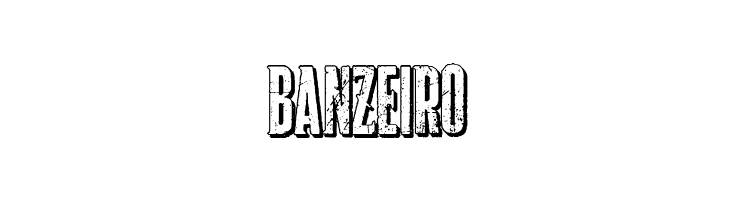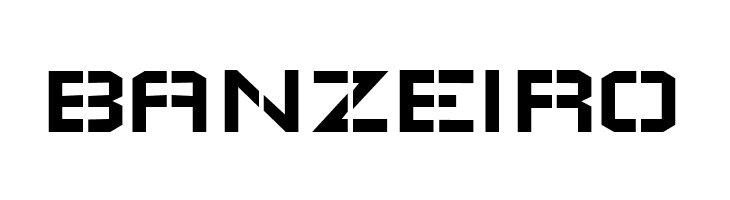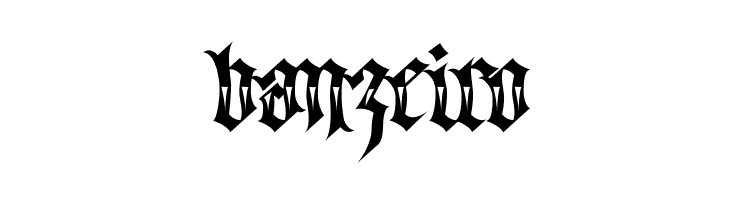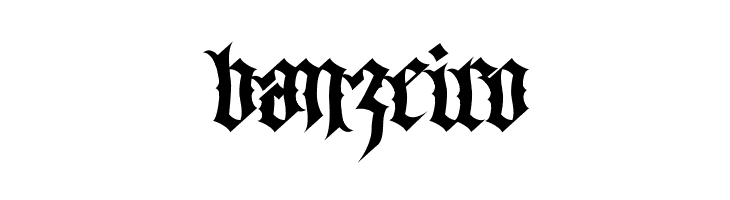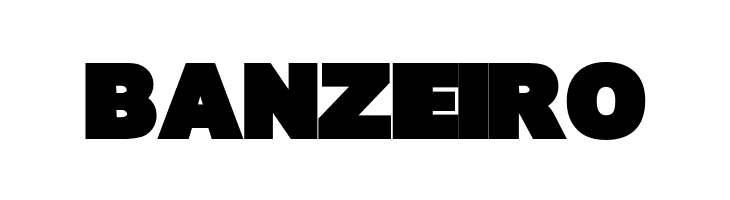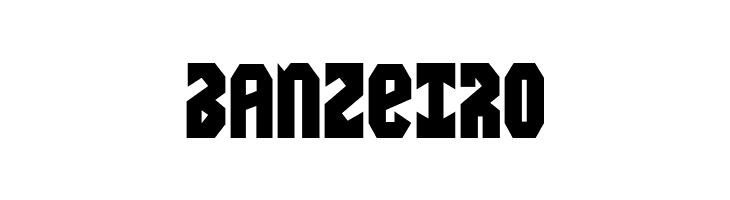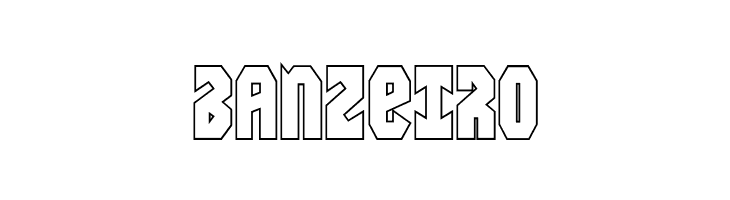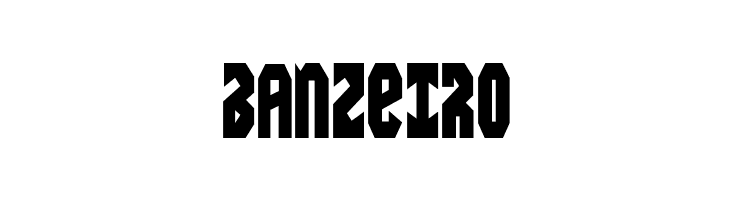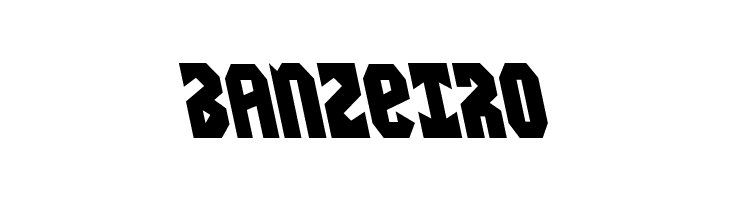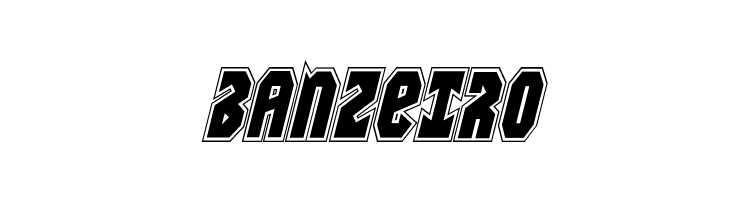
• vtks storm 2
• VTKS WORKER
A bold, distressed font with a grunge, industrial aesthetic.
• Vulcan Script
An intricate and decorative font with geometric and mystical designs.
• Walk Da Walk One
A bold, gothic Blackletter font with sharp, angular lines and intricate detailing.
• Walk Da Walk Three
A bold, dramatic blackletter font with high contrast and intricate details.
• Walk Da Walk Two
A bold, blackletter style font with sharp, angular lines and high contrast.
• Wallpoet
A bold, geometric, stencil-like font with a modern industrial feel.
• War Games
A bold, impactful font with thick strokes and a modern, commanding presence.
• Warlords
A bold, angular font with a geometric and aggressive style.
• Warlords Bold
A bold, angular font with a geometric and modern style.
• Warlords Bold Italic
A bold, italicized font with sharp, angular edges and a futuristic aesthetic.
• Warlords Italic
A bold, angular italic font with a futuristic and dynamic style.
• Warrior Nation 3D Italic
A bold, 3D italic font with a futuristic and angular design.
• Warrior Nation 3D Regular
A bold, 3D geometric font with sharp angles and a strong visual impact.
• Warrior Nation Academy Italic
A bold, angular, italic font with a dynamic, three-dimensional style.
• Warrior Nation Academy Regular
A bold, angular font with a strong, three-dimensional appearance.
• Warrior Nation Bold